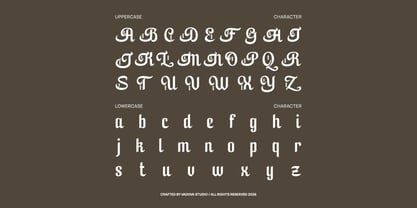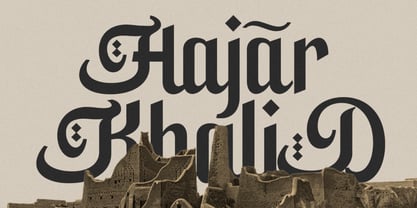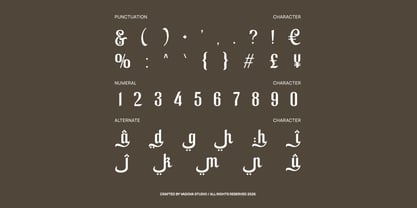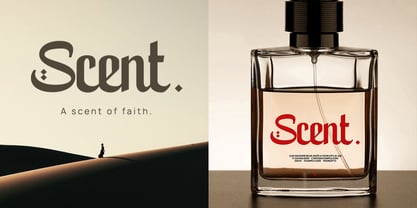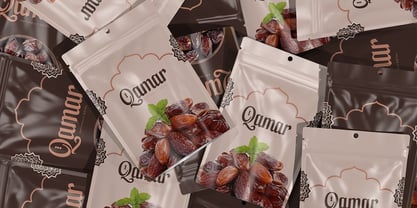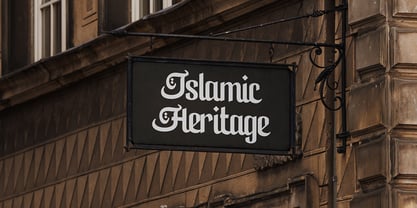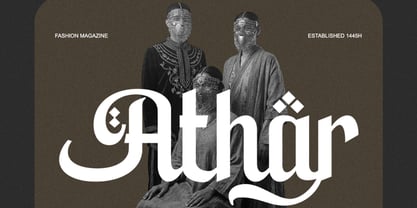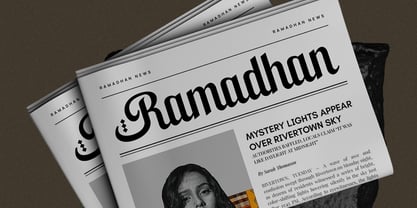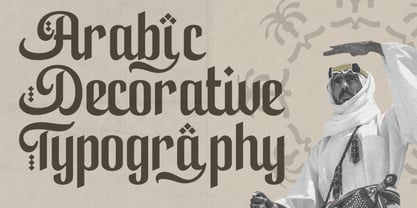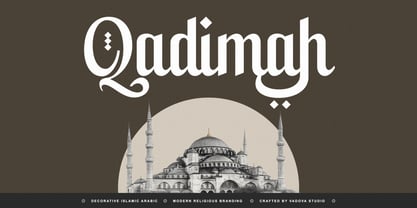
Qadimah
Qadimah is a decorative Islamic-inspired display font that blends traditional Arabic ornamental elements with refined Latin letterforms. The file includes uppercase, lowercase, numerals, and punctuation, featuring distinctive diamond-shaped details and elegant calligraphic curves. Qadimah is a decorative Islamic-inspired display font that blends traditional Arabic ornamental elements with refined Latin letterforms. The file includes uppercase, lowercase, numerals, and punctuation, featuring distinctive diamond-shaped details and elegant calligraphic curves. Designed with strong vertical rhythm and decorative terminals, it delivers a cultural yet contemporary aesthetic suitable for impactful headlines and branding.